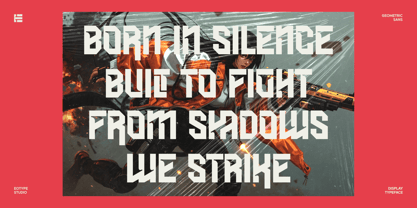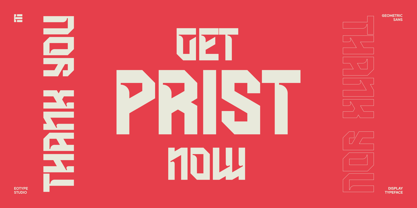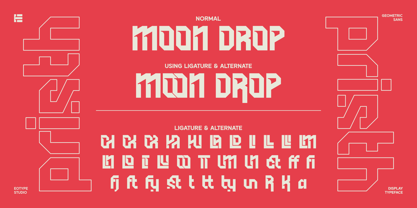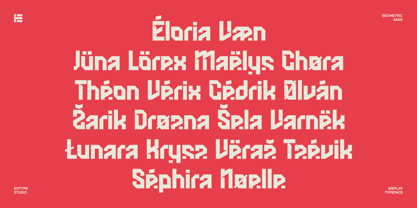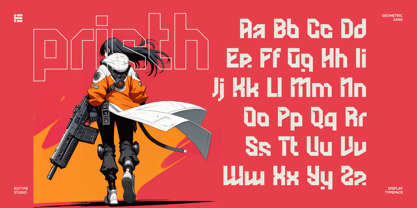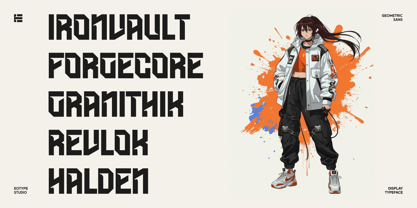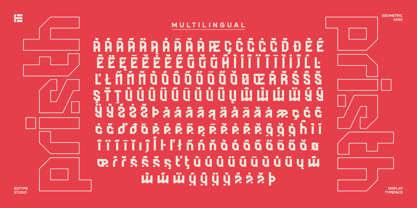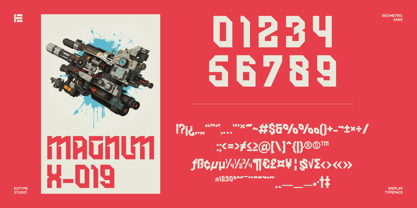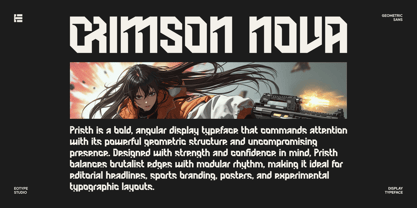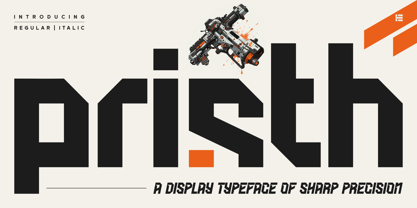
Pristh
by Eotype
The Pristh Font Family was designed by Fajar Ramadan and published by Eotype. Pristh contains 2 styles and family package options.
Pristh is a bold, angular display typeface that commands attention with its powerful geometric structure and uncompromising presence. Designed with strength and confidence in mind, Pristh balances brutalist edges with modular rhythm, making it ideal for editorial headlines, sports branding, posters, and experimental typographic layouts.